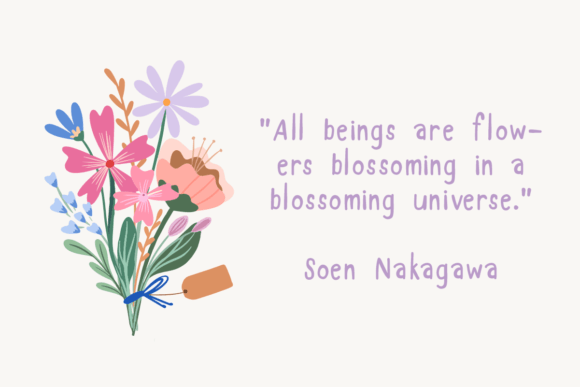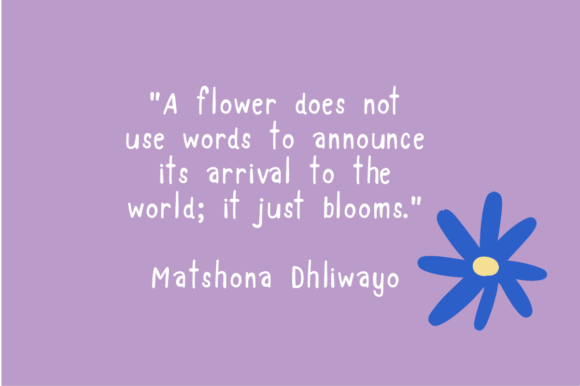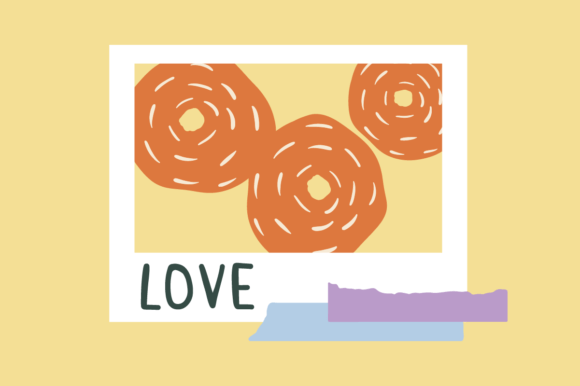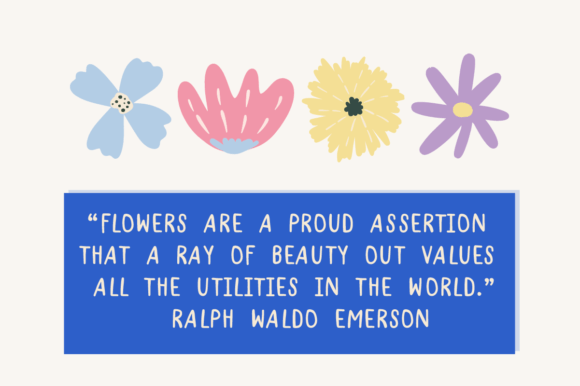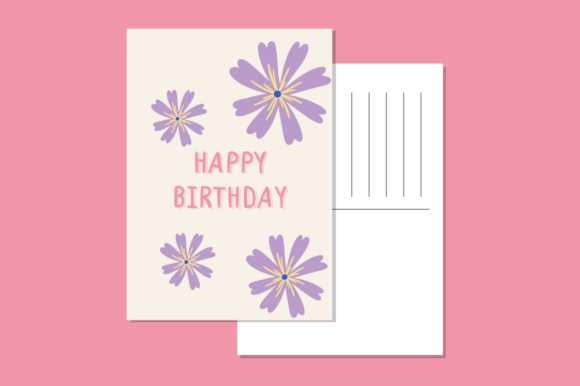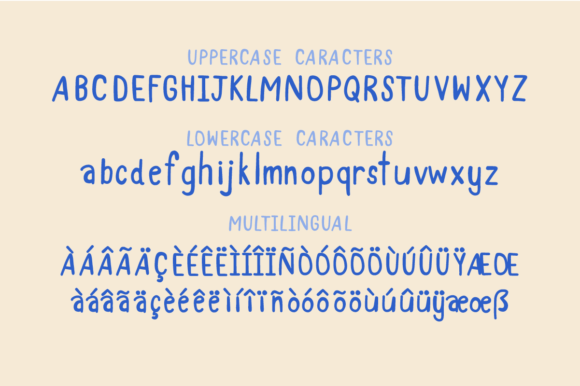
The Sweet Delight of Flower Bloom Font
Have you ever been in the middle of a design project, and suddenly, the perfect font seems elusive? I recall a particularly frustrating moment when I was working on a greeting card design. My client wanted a playful, handwriting font that would make the card feel personal and special. After scouring through countless font libraries, I stumbled upon Flower Bloom Font. It was love at first sight! 💕
A Playful Handwriting Font: First Impressions
FLOWER BLOOM is a playful handwriting font designed to add a touch of whimsy to your creations. It’s perfect for creating posters, logos, greeting cards, and packaging. The font’s playful nature makes it an excellent choice for decorating illustrations and so much more! 🎨
Here’s what I love about Flower Bloom Font:
- ✨ Playful and whimsical: The font has a carefree, handwritten feel that’s perfect for designs that need a personal touch.
- ✅ Highly legible: Despite its playful nature, Flower Bloom Font is surprisingly easy to read, making it suitable for both headings and body text.
- 💫 Versatile: The font comes with a range of OpenType features, glyphs, and stylistic alternates, allowing you to experiment with different styles and effects.
And here are a few quirks to keep in mind:
- 🤔 Limited use in formal designs: While Flower Bloom Font is amazing for playful designs, it might not be the best fit for formal or professional projects.
- ⚠️ Some characters may require manual kerning: As with any font, you might need to adjust the kerning for certain character combinations to achieve optimal results.
The Designer Inspiration Behind Flower Bloom Font
While the true story behind Flower Bloom Font remains a mystery, it’s easy to imagine that the designer was inspired by the beauty of nature and the joy of handwriting. Perhaps they spent hours pouring over handwritten notes, letters, and journals, extracting the essence of playfulness and whimsy to create this delightful font.
| Font Name | Flower Bloom Font |
| Author | Nyla.studio |
| What is Flower Bloom Font best used for? | FLOWER BLOOM is perfect for creating posters, logos, greeting cards, and packaging, as well as decorating illustrations. |
| Is Flower Bloom Font easy to read? | Yes, despite its playful nature, Flower Bloom Font is surprisingly easy to read, making it suitable for both headings and body text. |